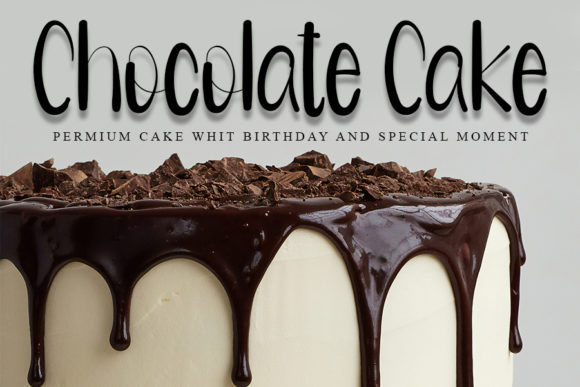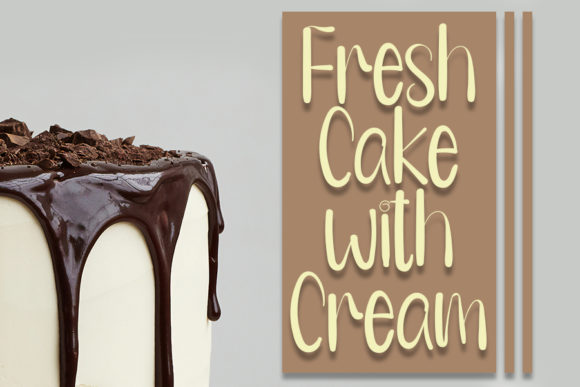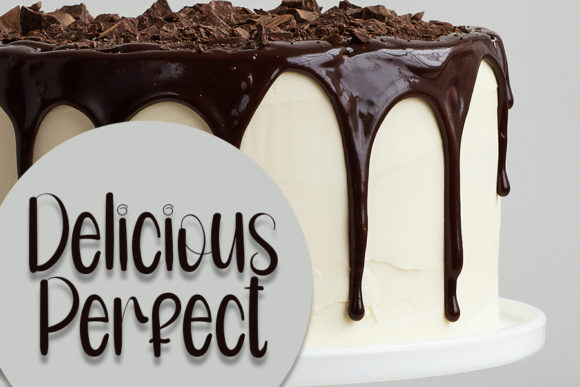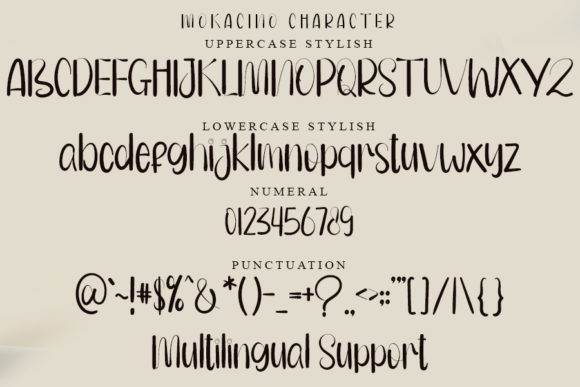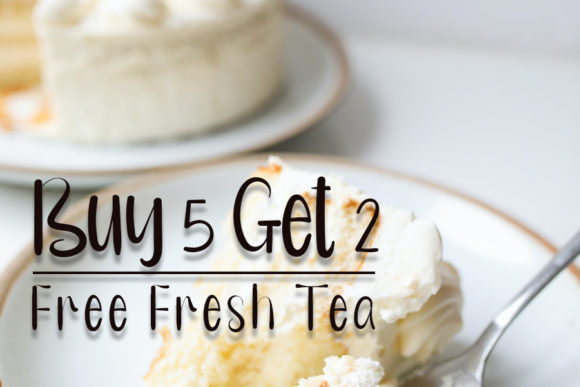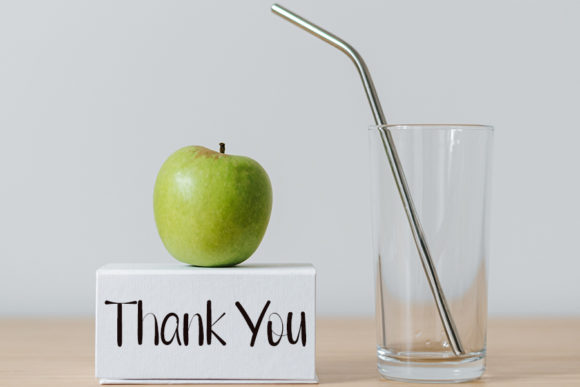
Introduction to Mokacino Font
Mokacino is a neat and playful handwritten font.
Whether youโre looking for fonts for social media or calligraphy scripts for DIY projects, this font will turn any creative idea into a true piece of art .
Key Features of Mokacino Font
Why Choose Mokacino Font?
Mokacino Font offers exceptional quality and versatility, making it a valuable addition to your design toolkit. Whether you’re creating for personal projects or commercial use, Mokacino Font delivers professional results.